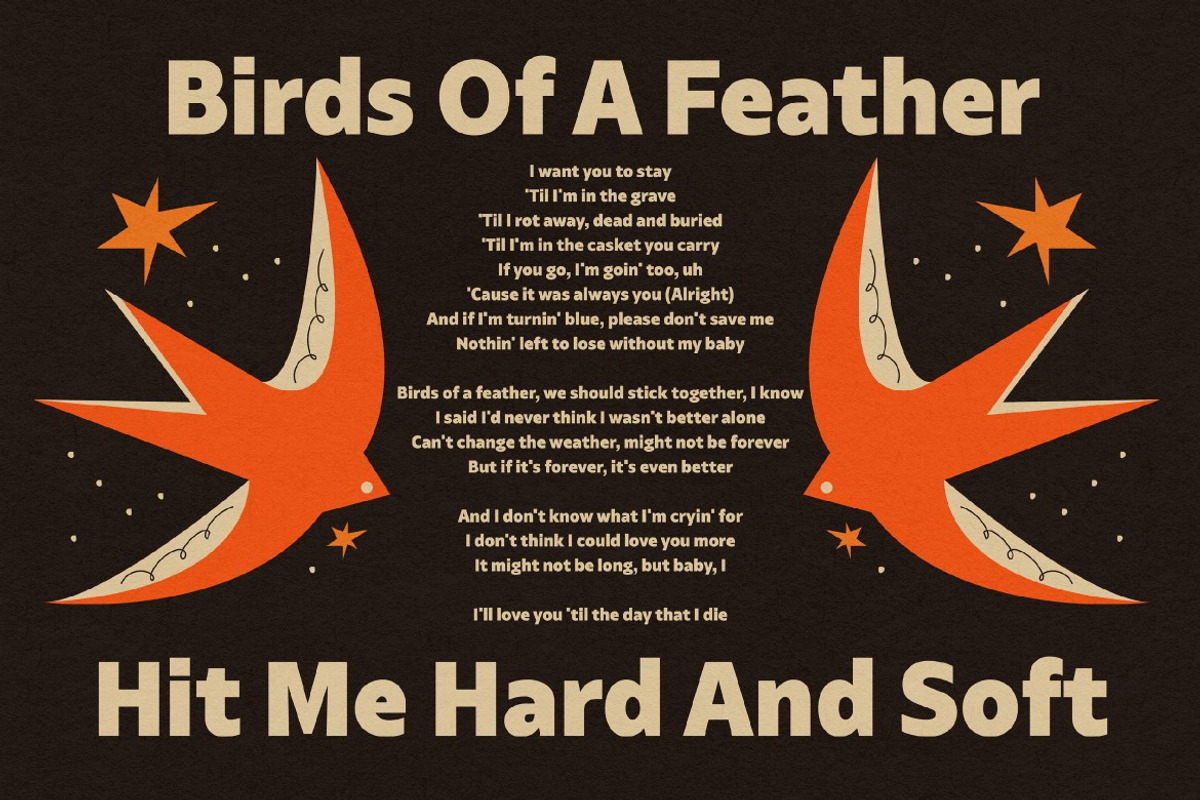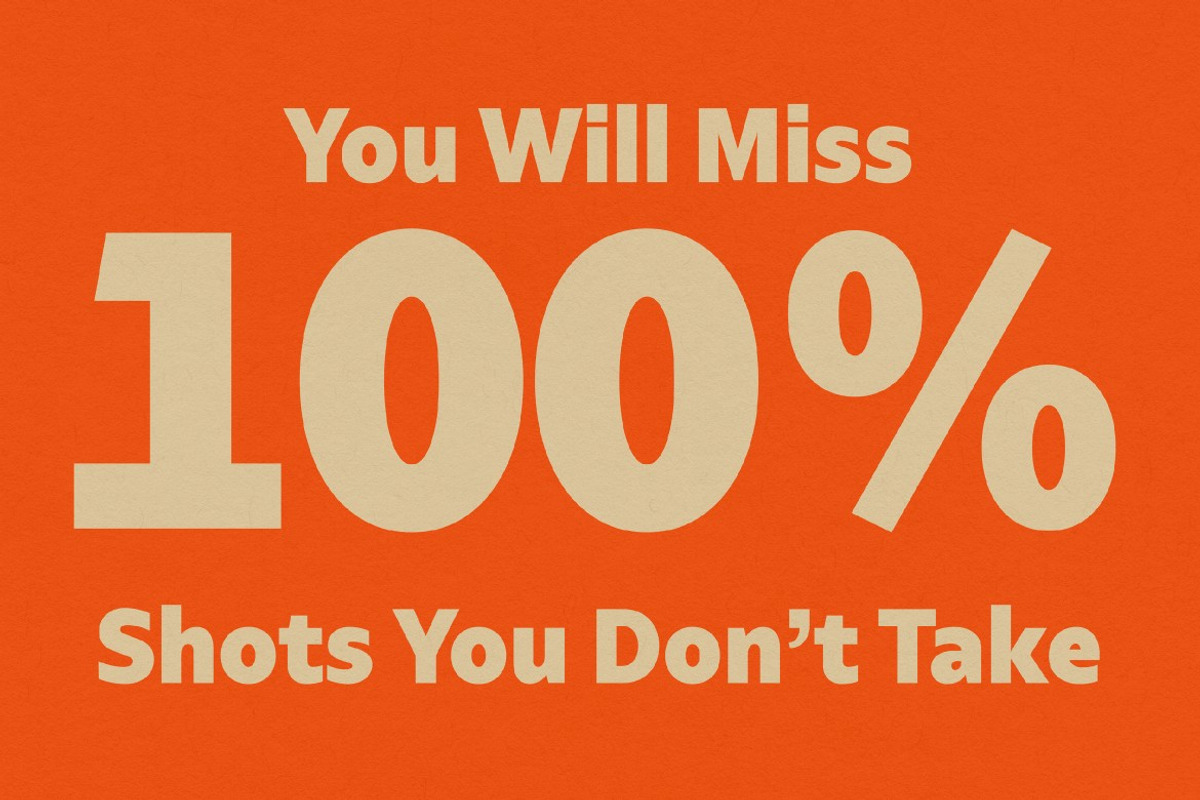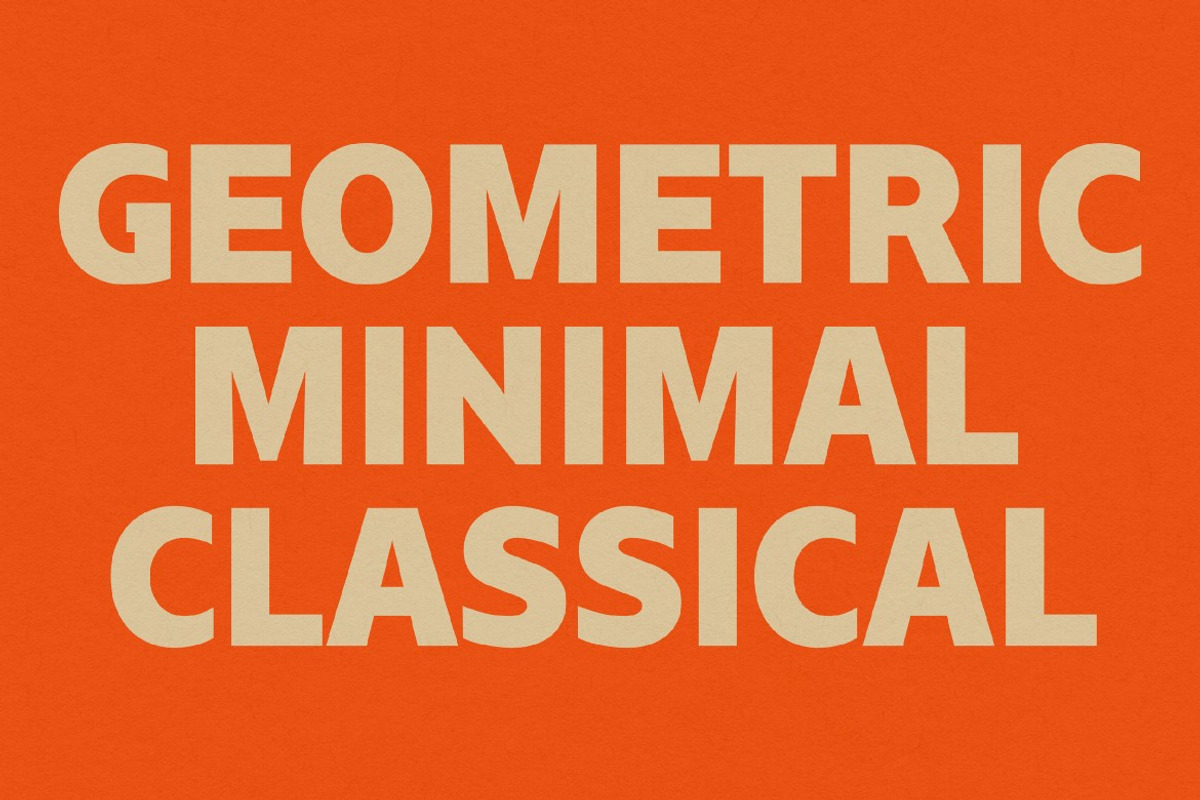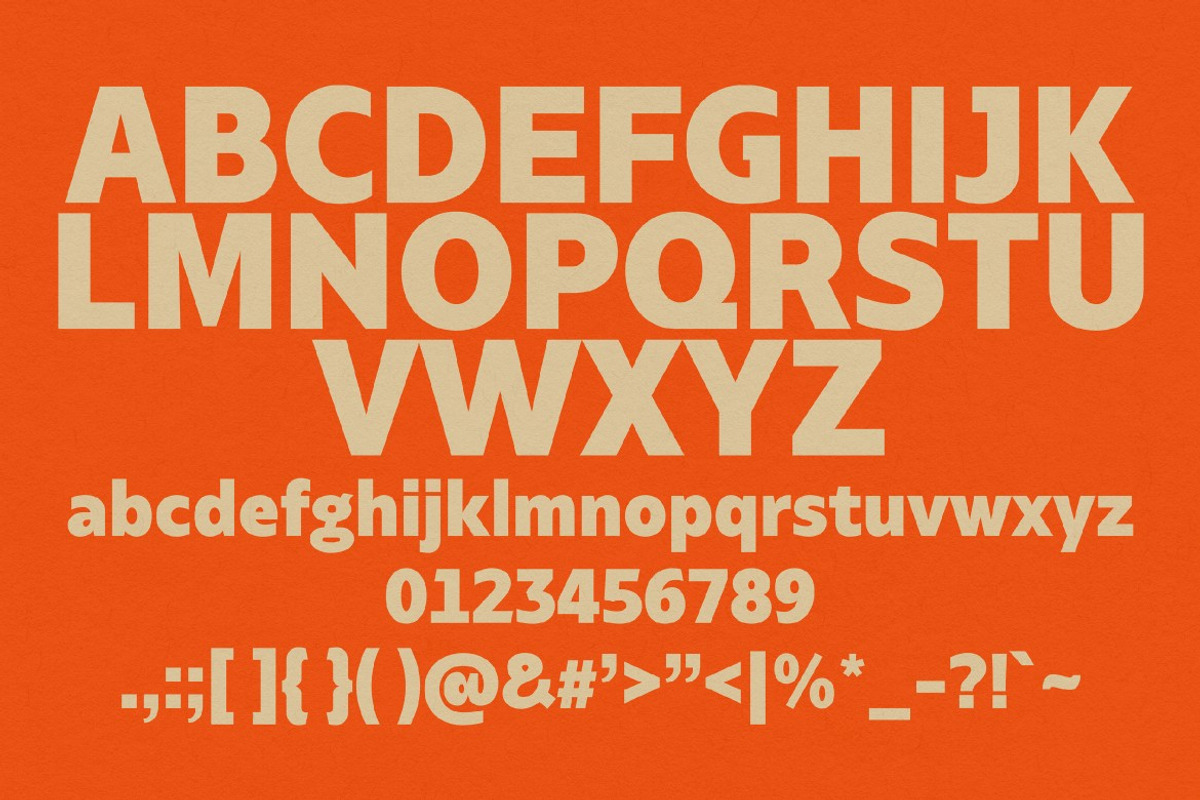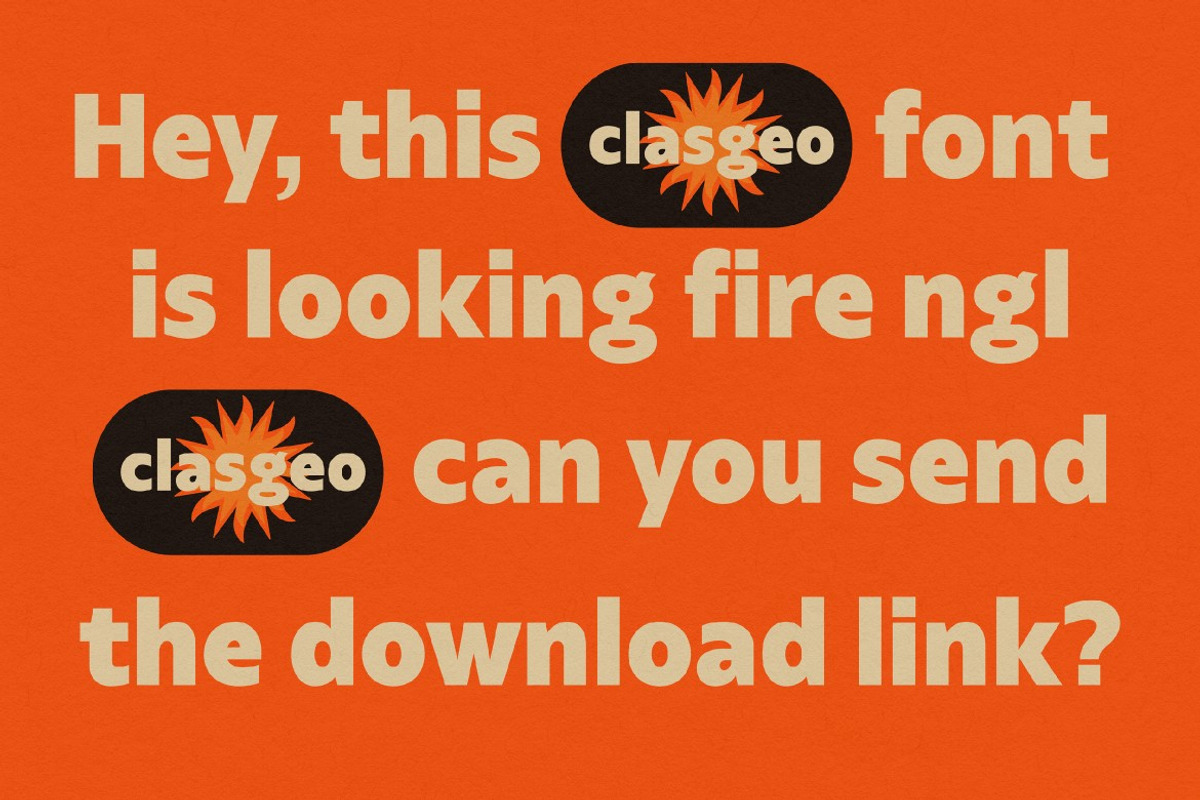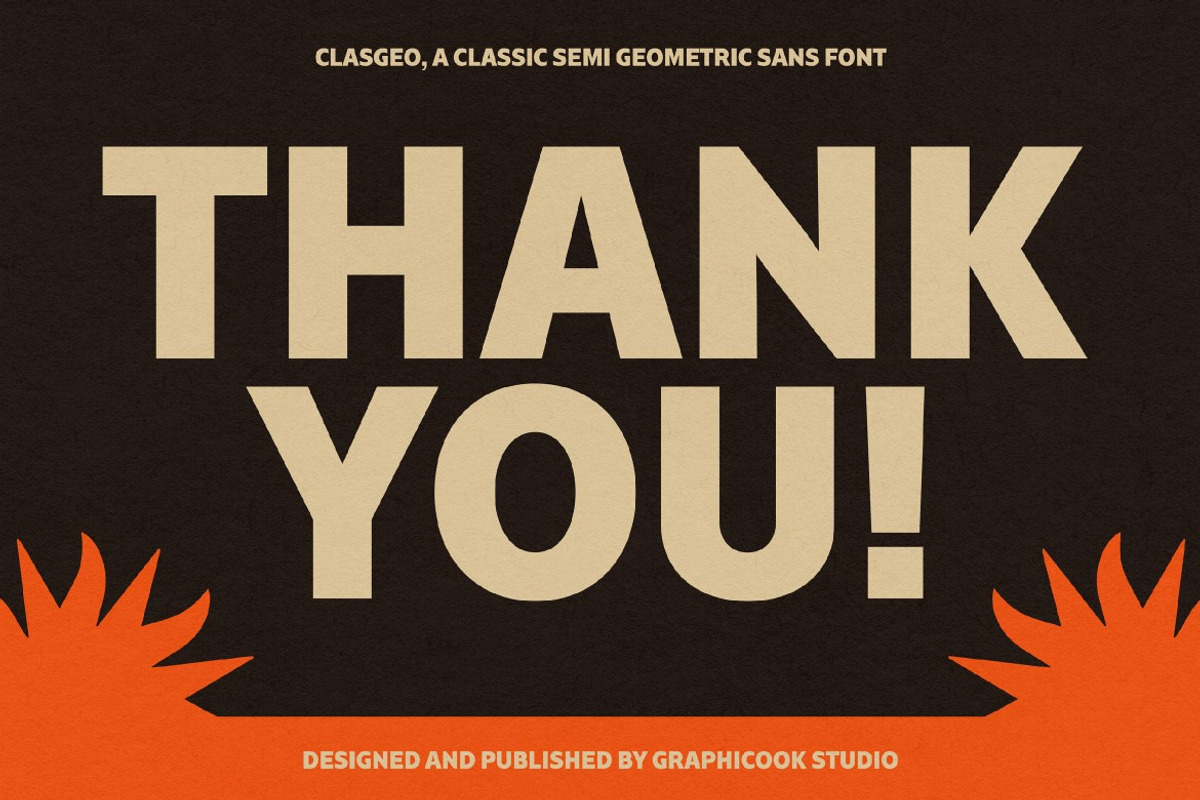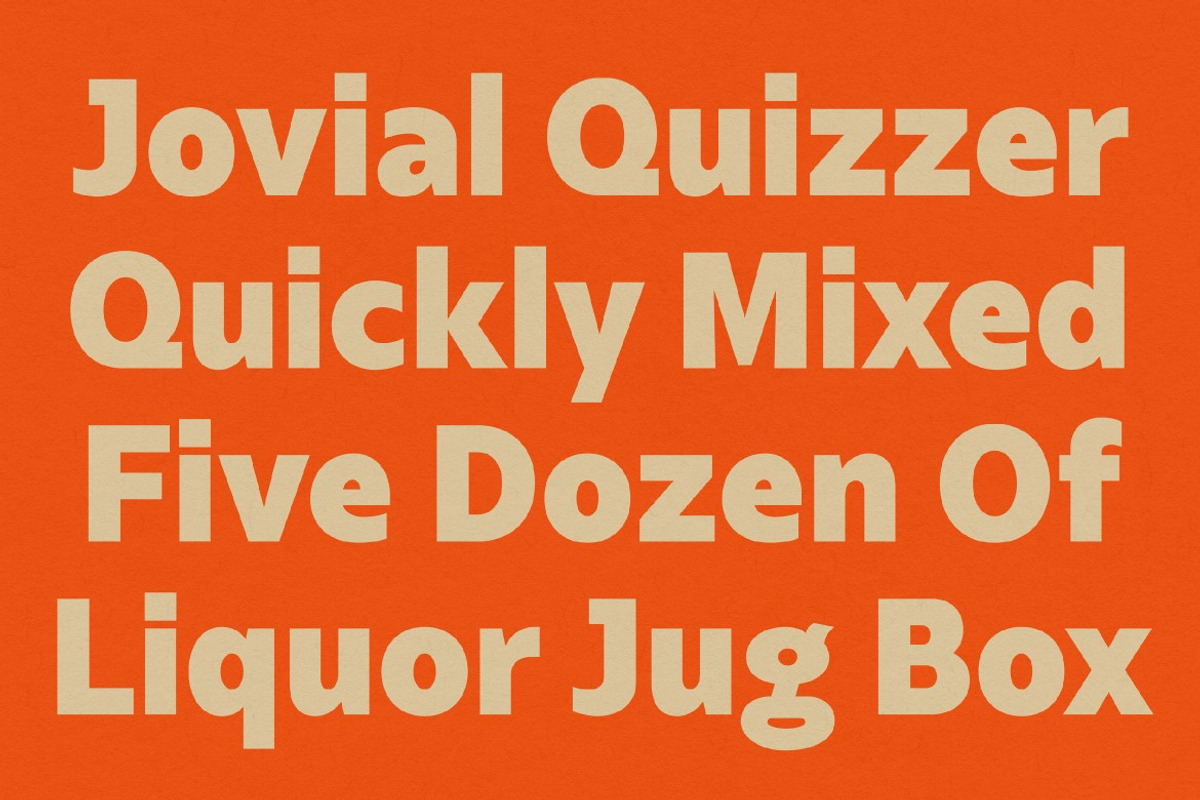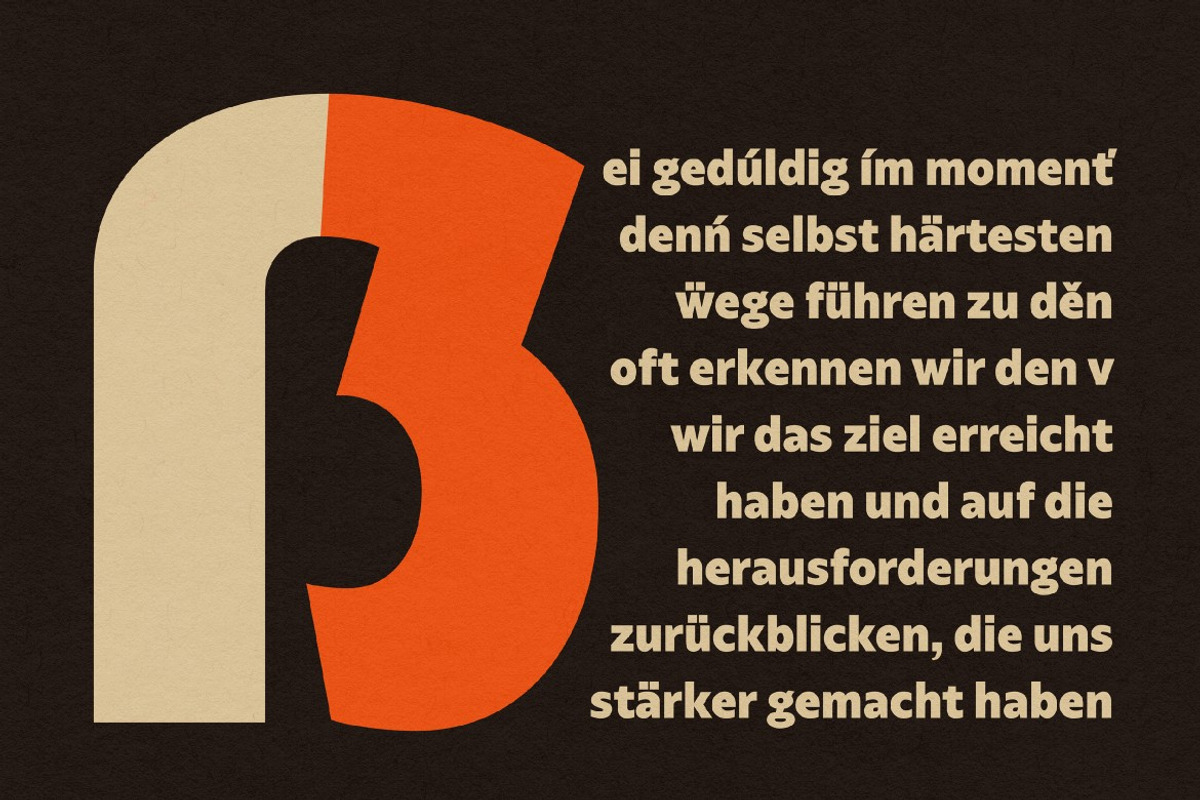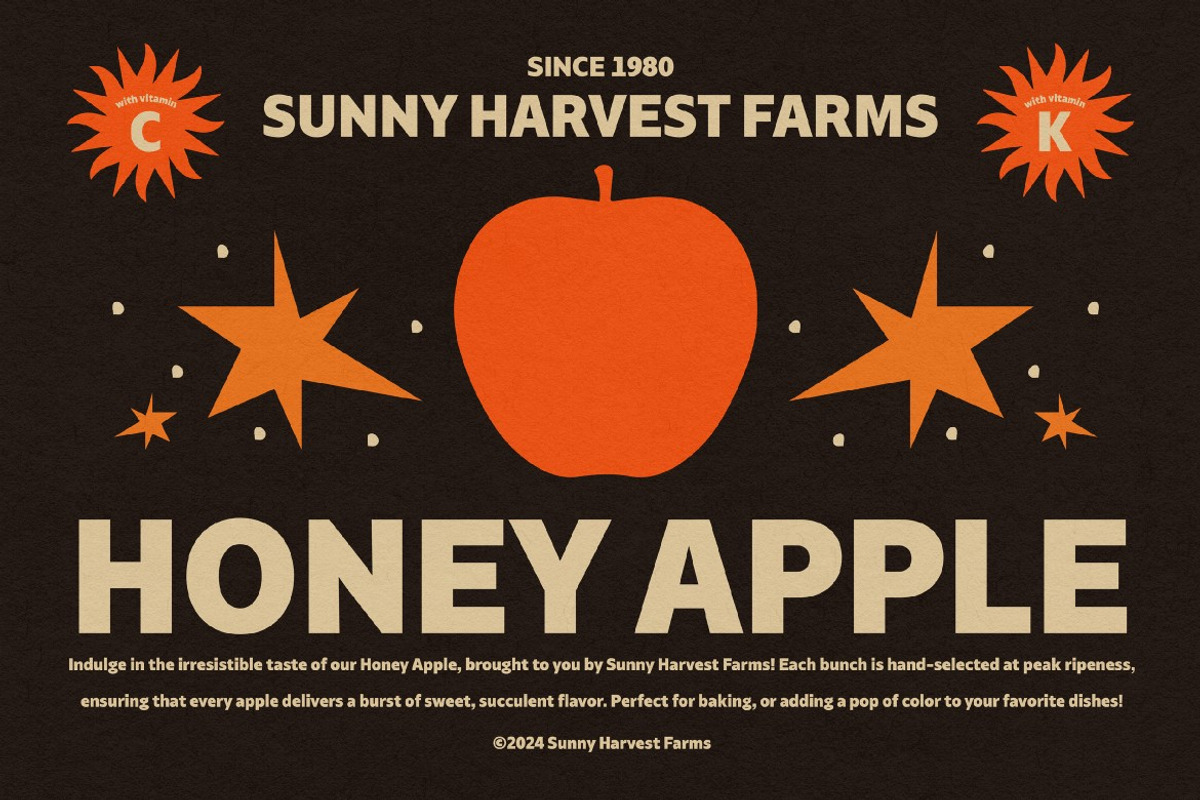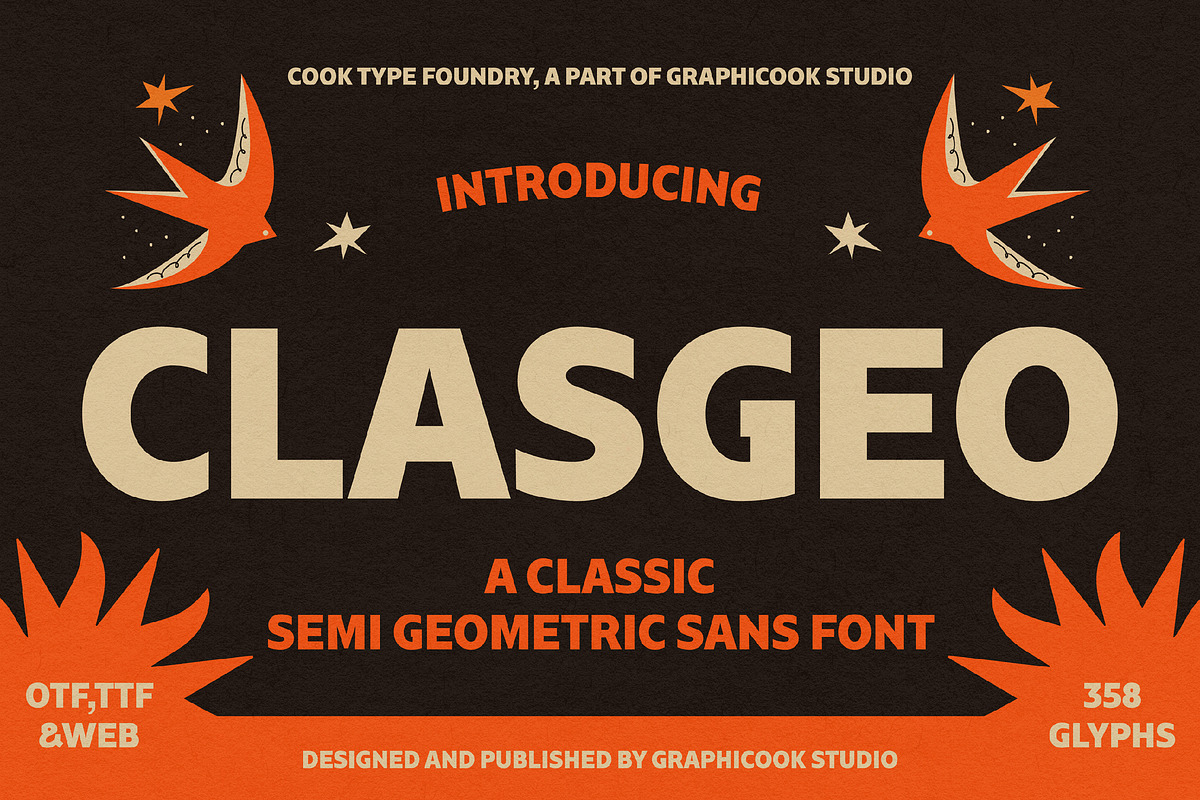
Clasgeo
Clasgeo is a classic sans font featuring a clean and bold typeface. It includes 357 glyphs and supports multiple languages, making it perfect for any design project.
Clasgeo is perfect for headlines, logotypes, magazines, packaging, quotes, movies, games, cover albums, book covers, and flyers, it's a perfect solution for creating eye-catching designs that stand out in any context.